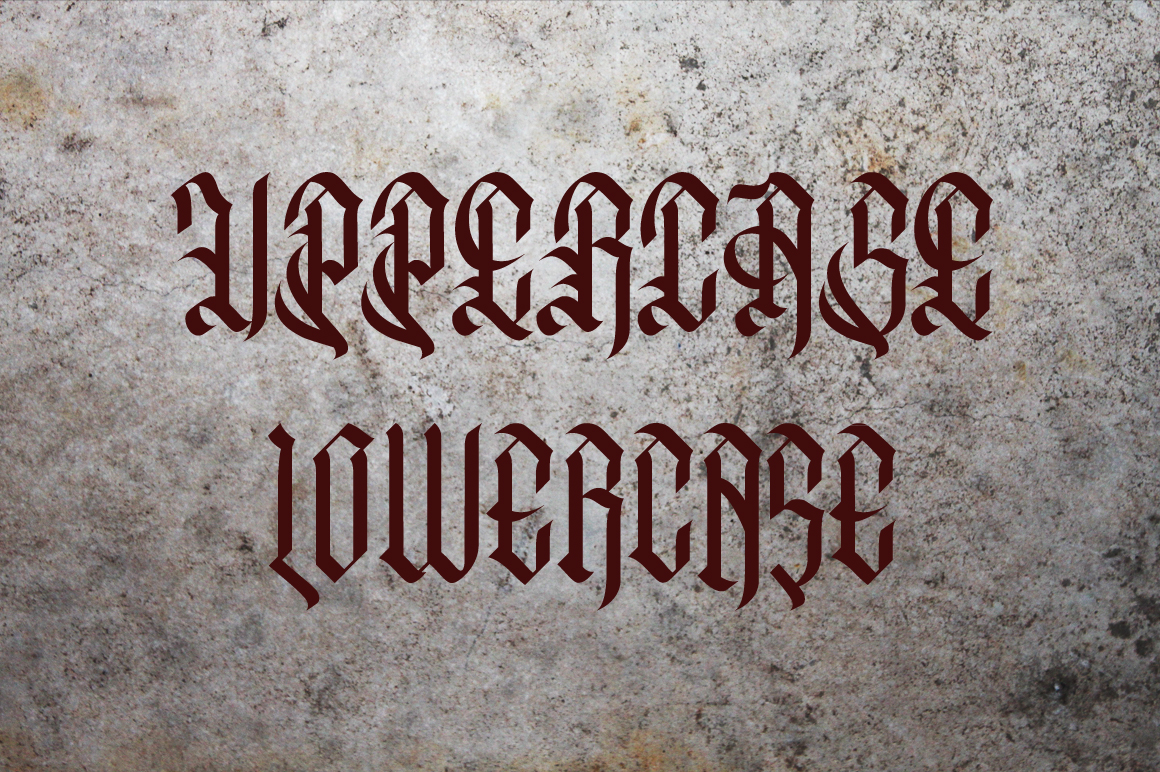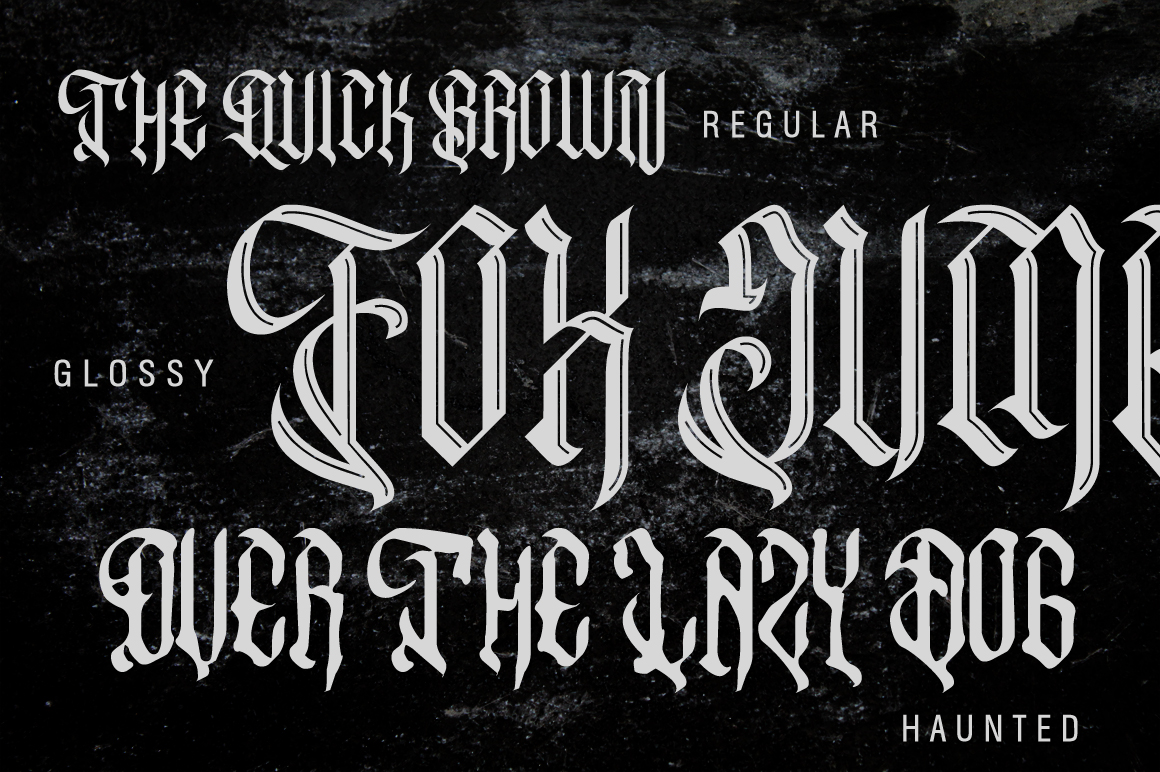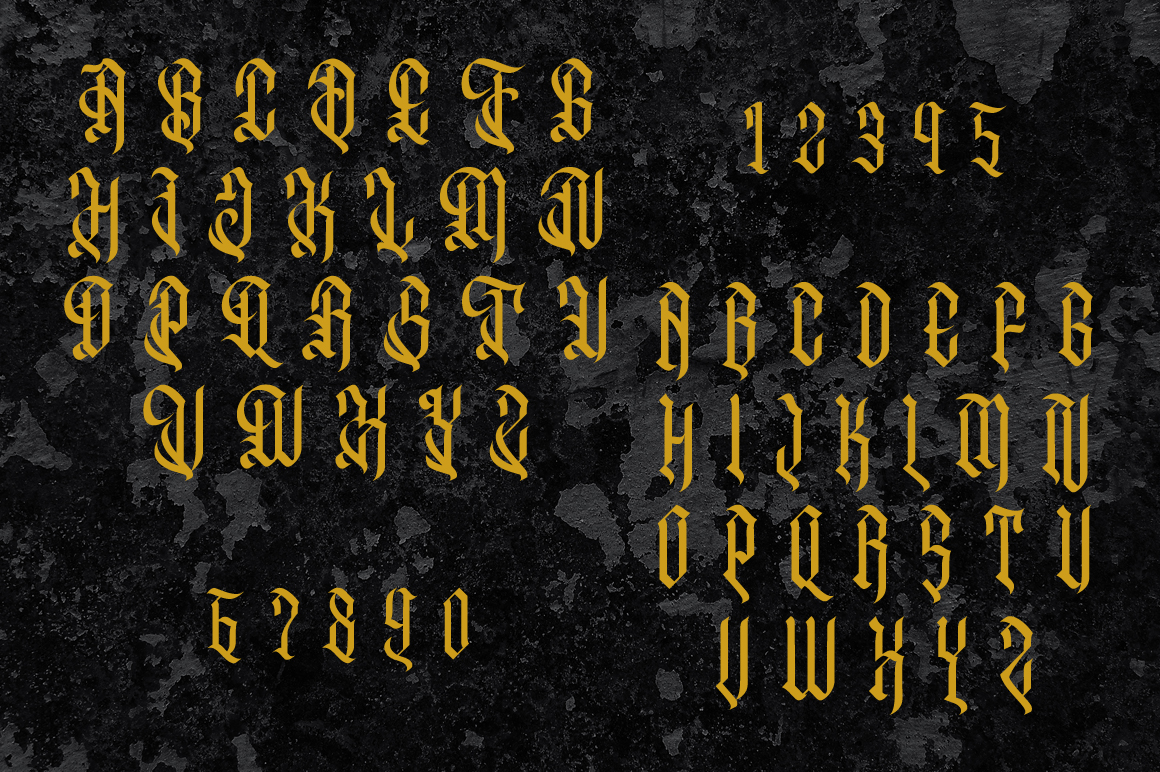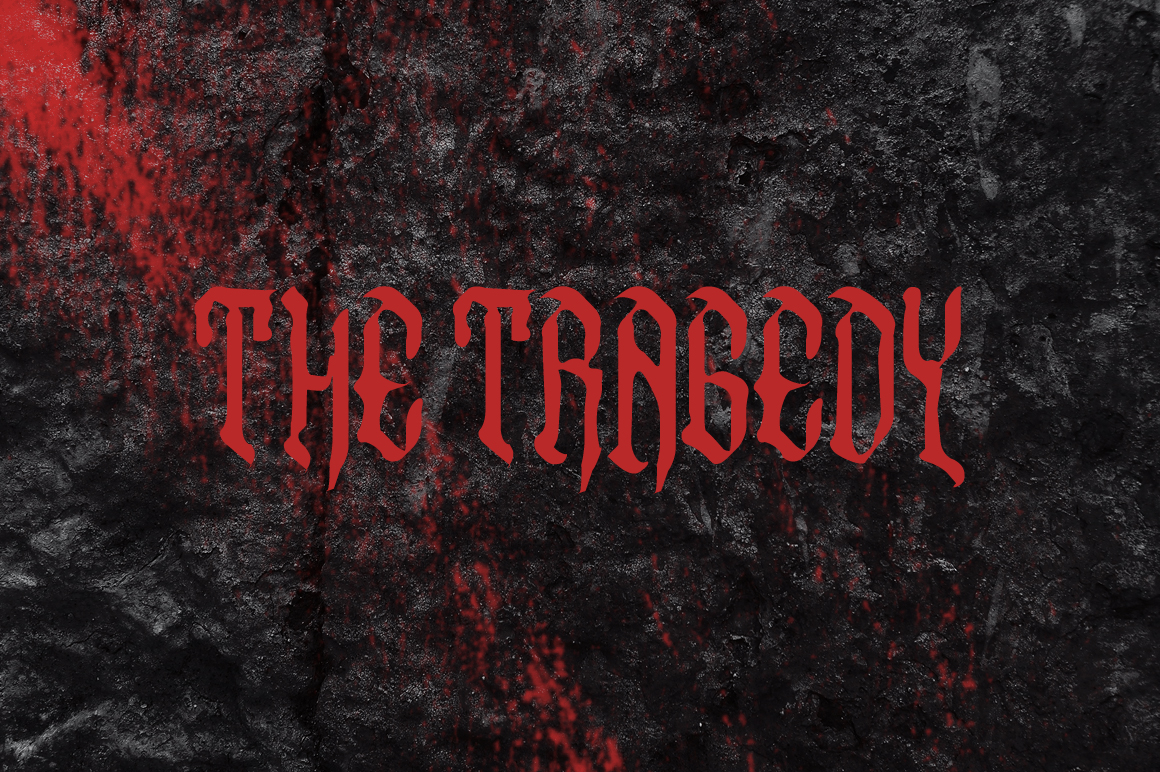
Oropitem Typeface
Greetings and introducing "Oropitem Typeface" an experimental typeface based on gothic style and penmanship. Already tested in Adobe Illustrator, Adobe Photoshop, Adobe Indesign, CorelDraw and etc.
Usefuly for your necessity such as headline/tittle Looks great in your poster, CD Cover, T-Shirt, flyer, book cover, magz or etc. The typeface featured uppercase, lowercase and numbers.